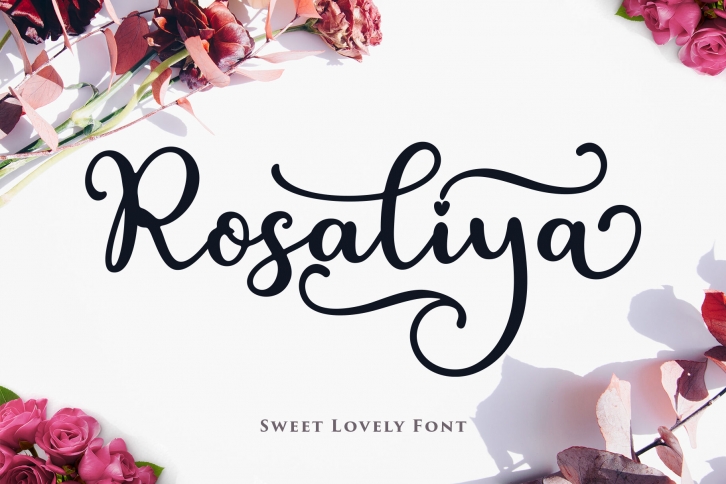
Rosaliya script - a new, fresh, cute, elegant, calligraphy font that is attractive, with a few cute ties in the heart that can be connected. Great for invitations, greeting cards, branding materials, business cards, quotes, posters, and more!